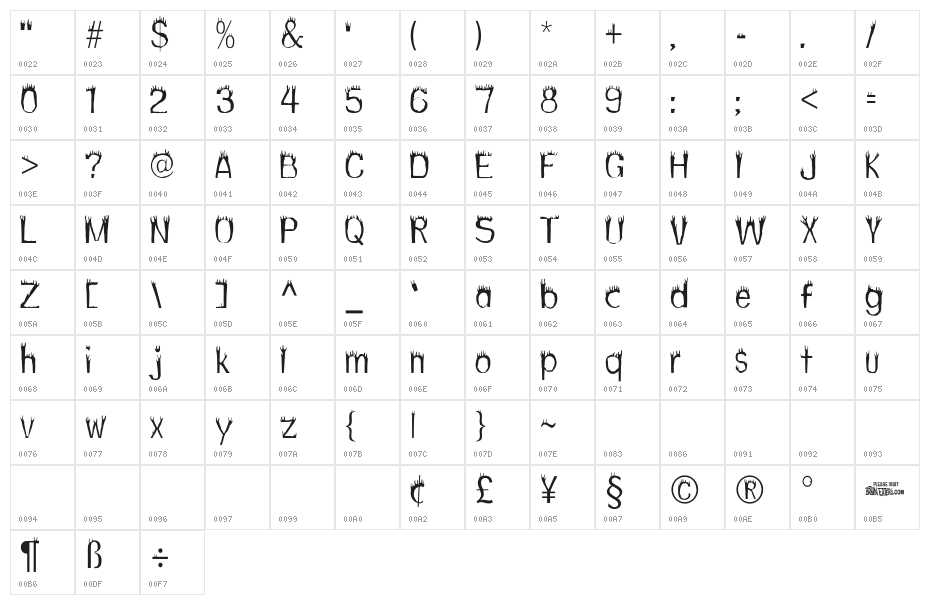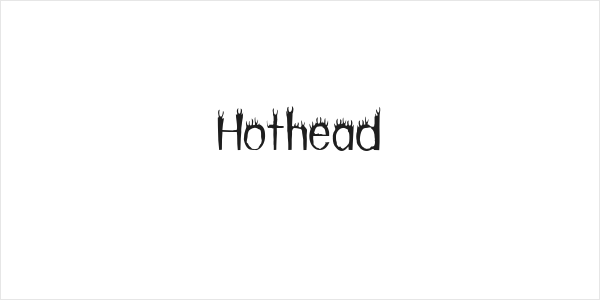
Hothead Font
Hothead Description
This font features a unique and edgy design with flame-like accents emerging from the top of each character, giving it a fiery and dynamic appearance. The characters are bold and slightly irregular, adding to the font's rebellious and energetic vibe. The uppercase and lowercase letters maintain a consistent style, with the flames adding a sense of movement and intensity. The numbers and special characters are designed to match the overall aesthetic, making this font suitable for projects that require a bold and eye-catching look.
Proposed ProjectsIdeal for music album covers, event posters, branding for extreme sports, or any project needing a fiery, attention-grabbing typeface.